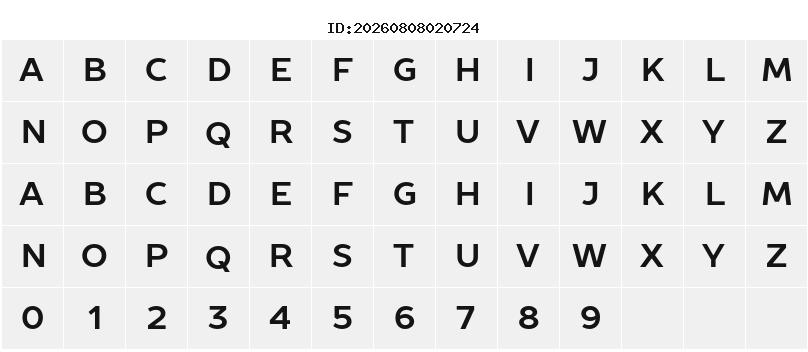
Prosto Sans Preview
• Font Name: Prosto Sans
• Designer: Typetype
• Manufacturer: Typetype
About Prosto Sans.otf
Prosto Sans.otf is a modern, elegant sans-serif font designed for ultimate readability and visual harmony. Perfect for branding, headlines, web design, and print materials.